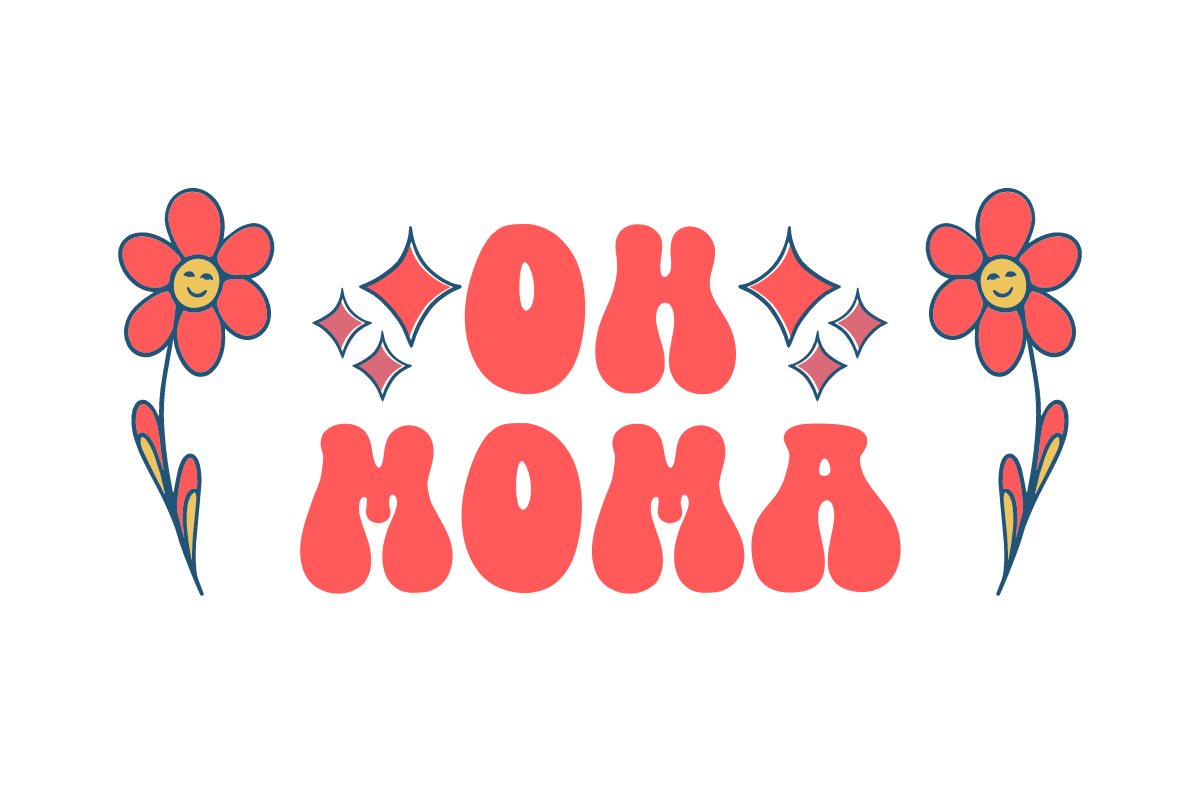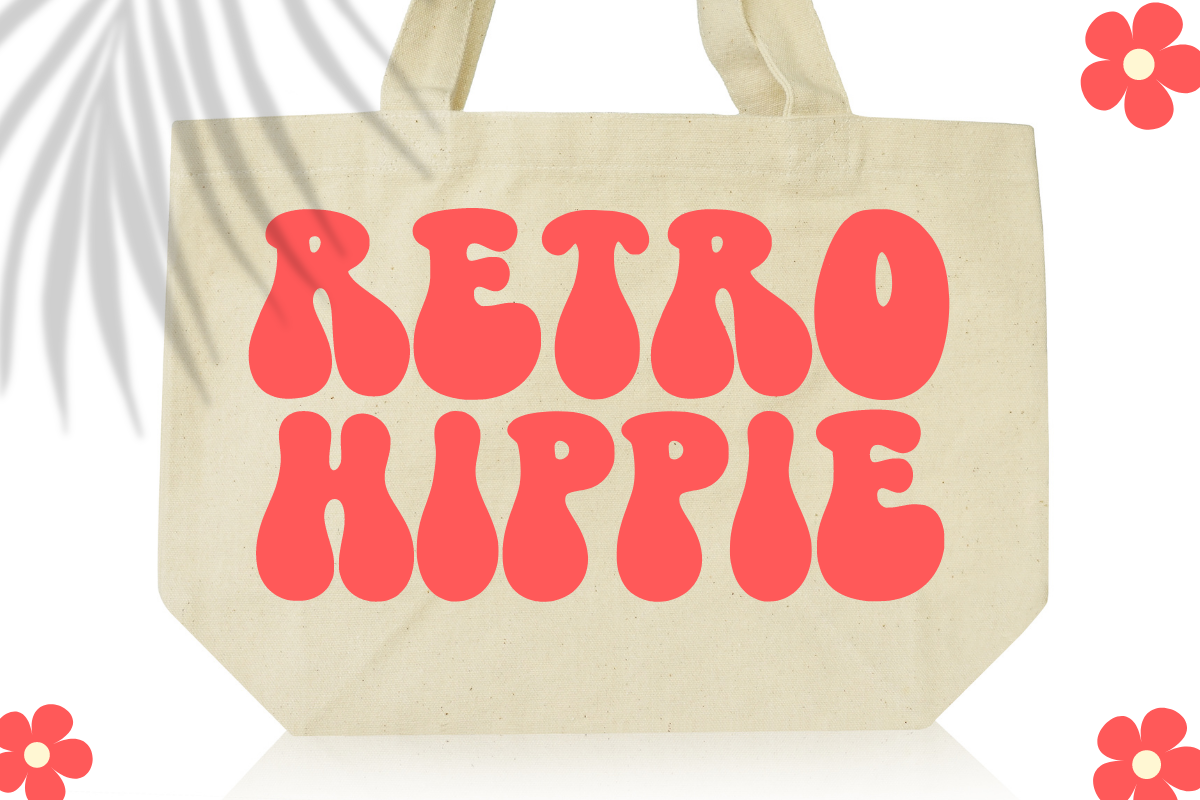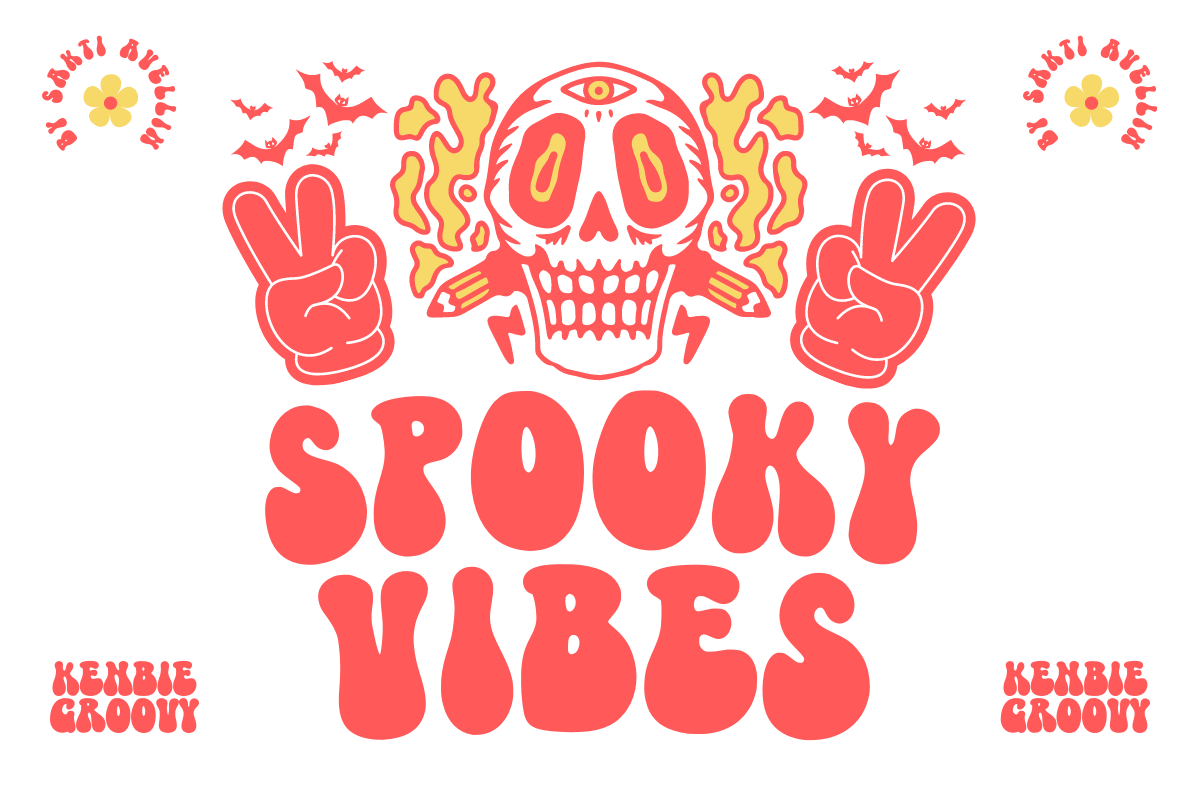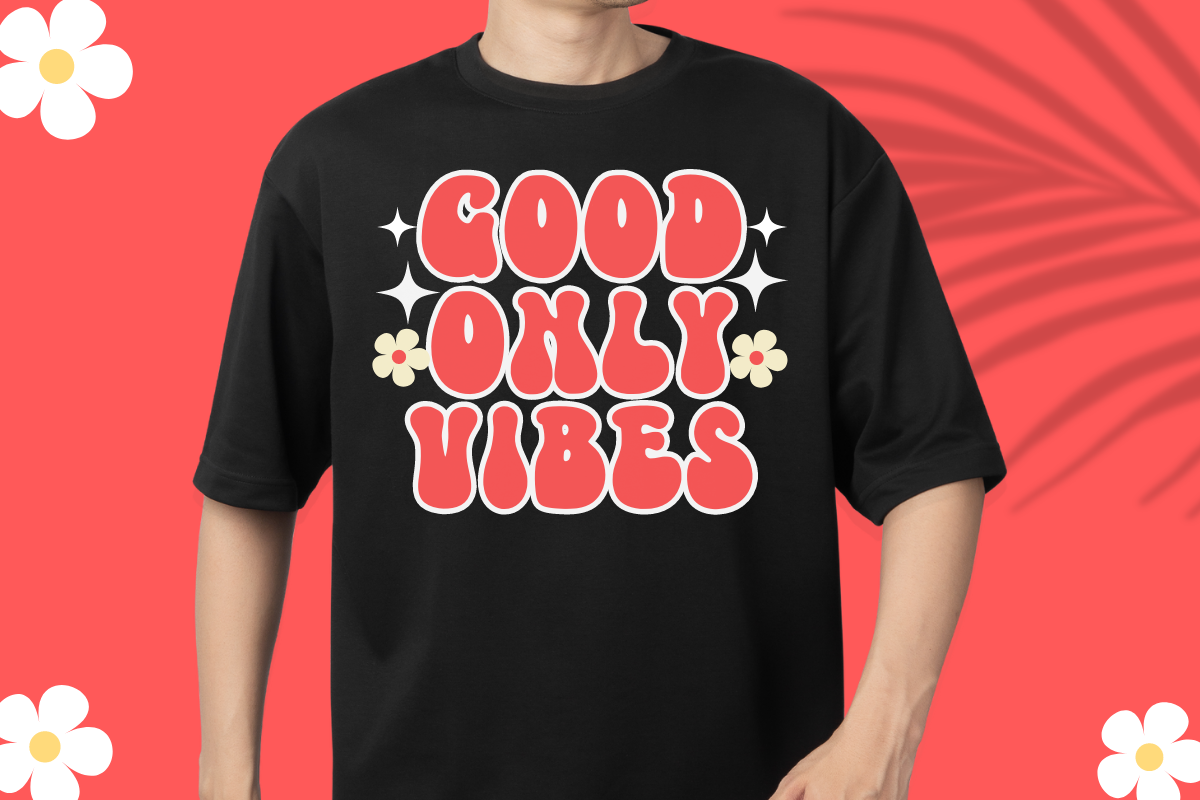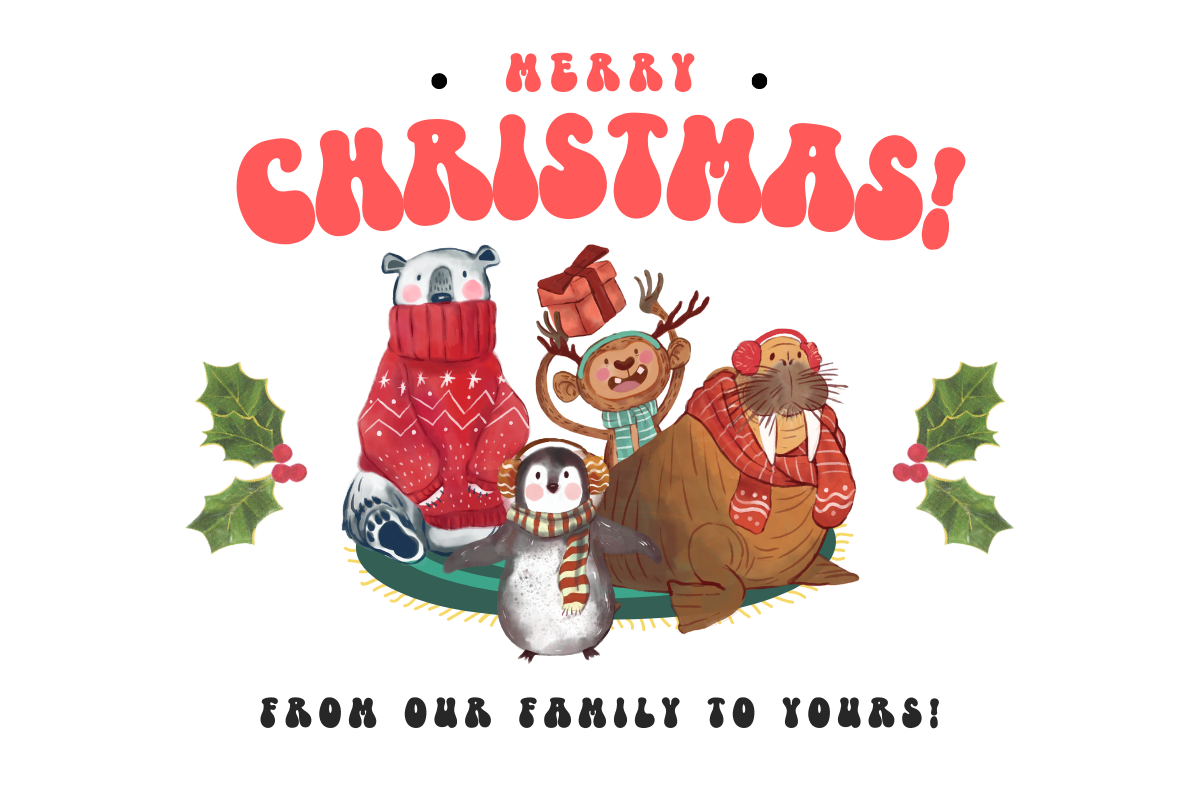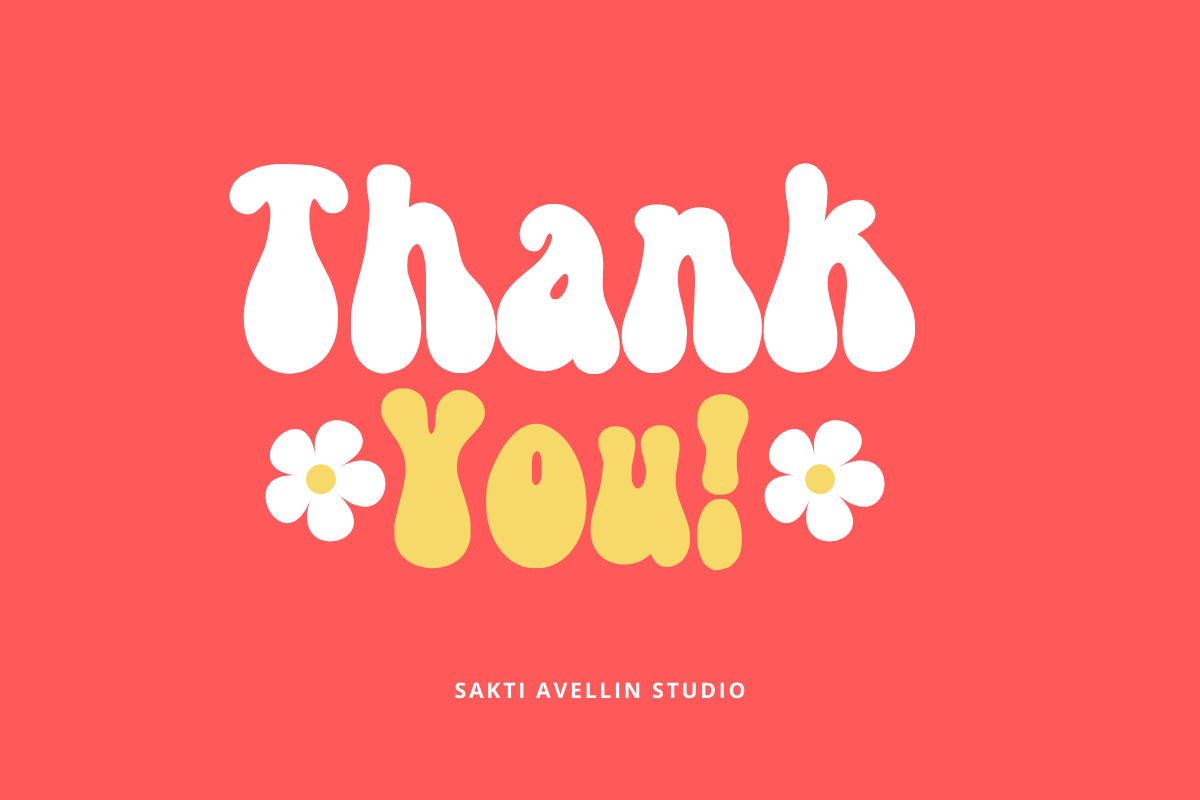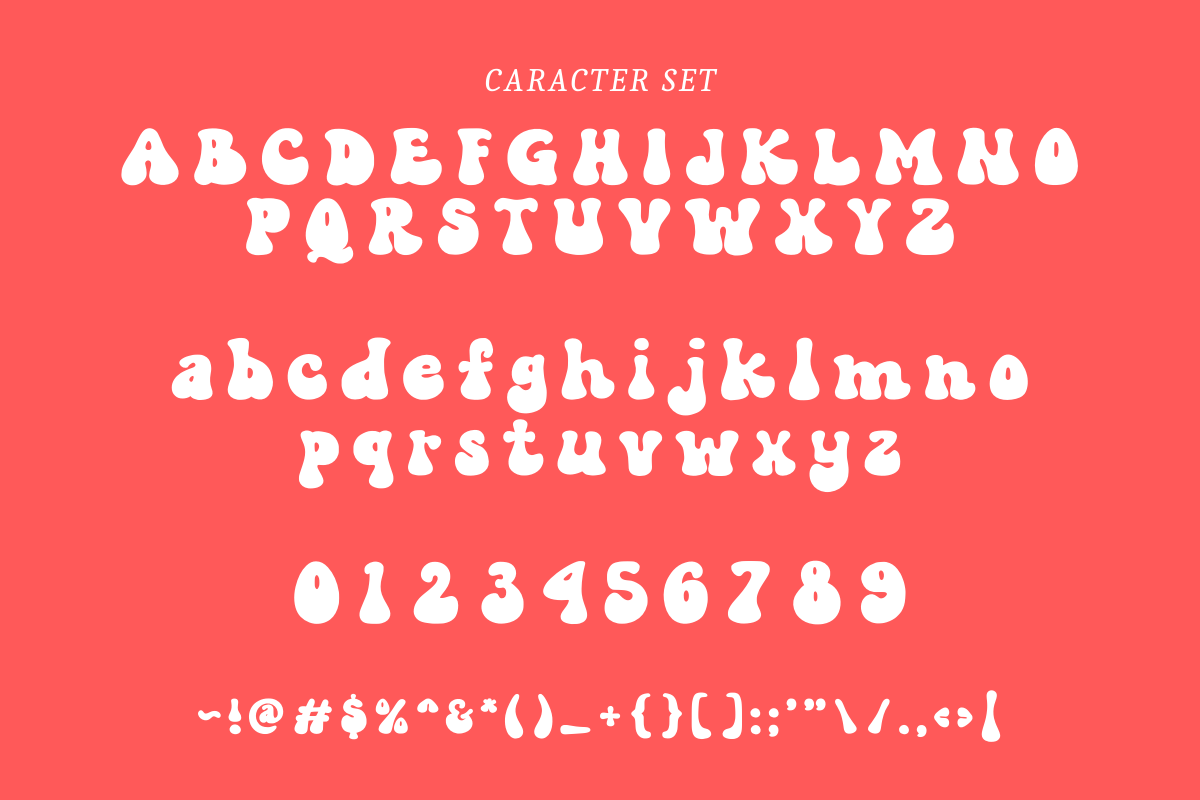
Kenbie Groovy
Kenbie Groovy is a playful groovy font, it’s perfect for designs that need a playful, cheery accent. Kenbie Groovy is suitable for book covers, posters, packaging, merchandise, logotypes,t shirt,totebag,tumblr and many more!